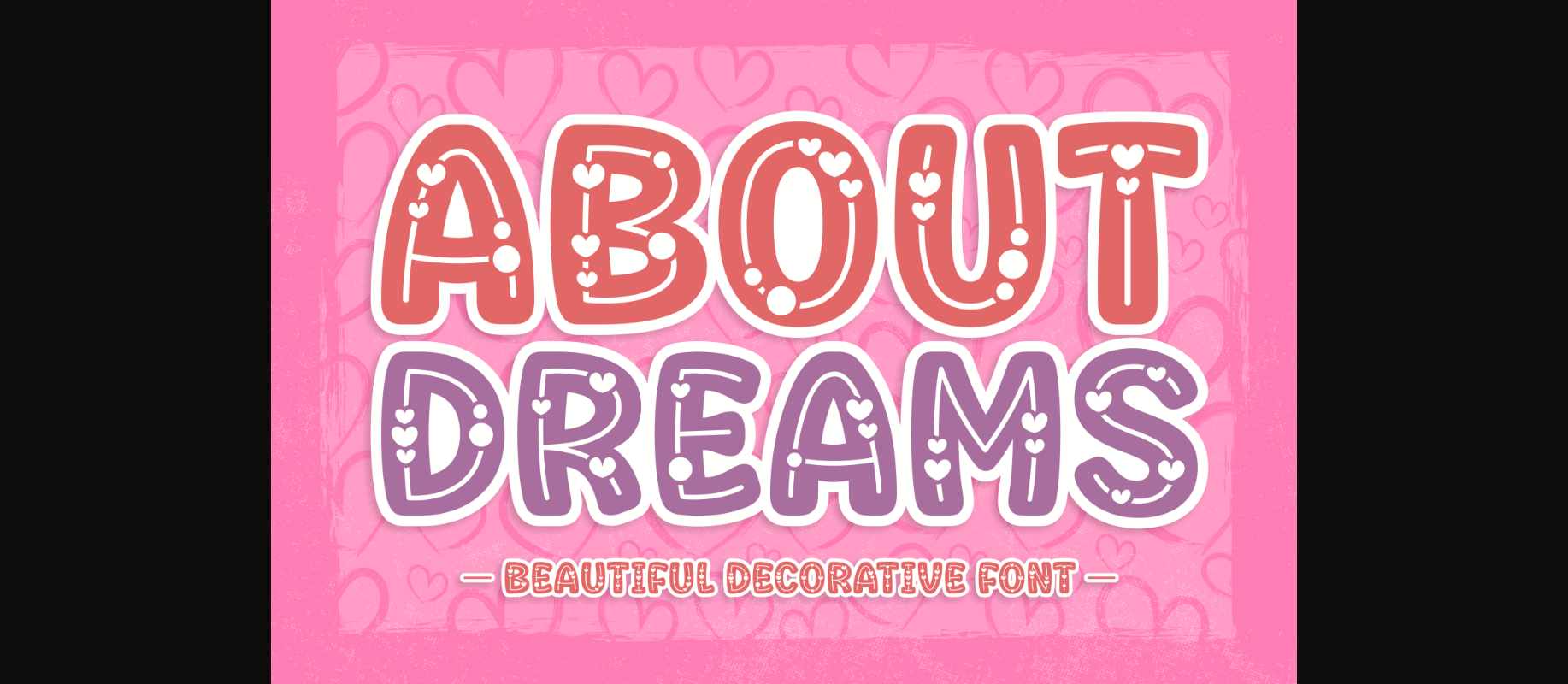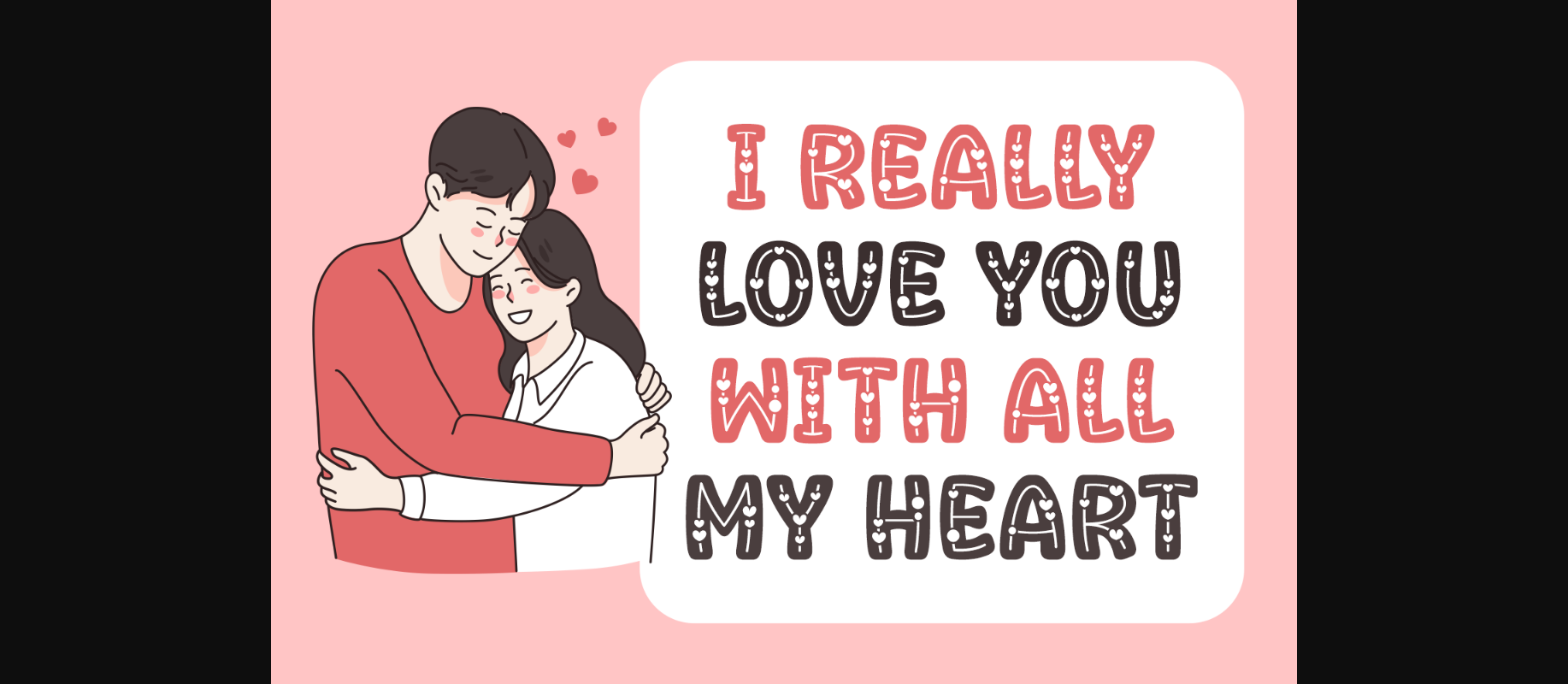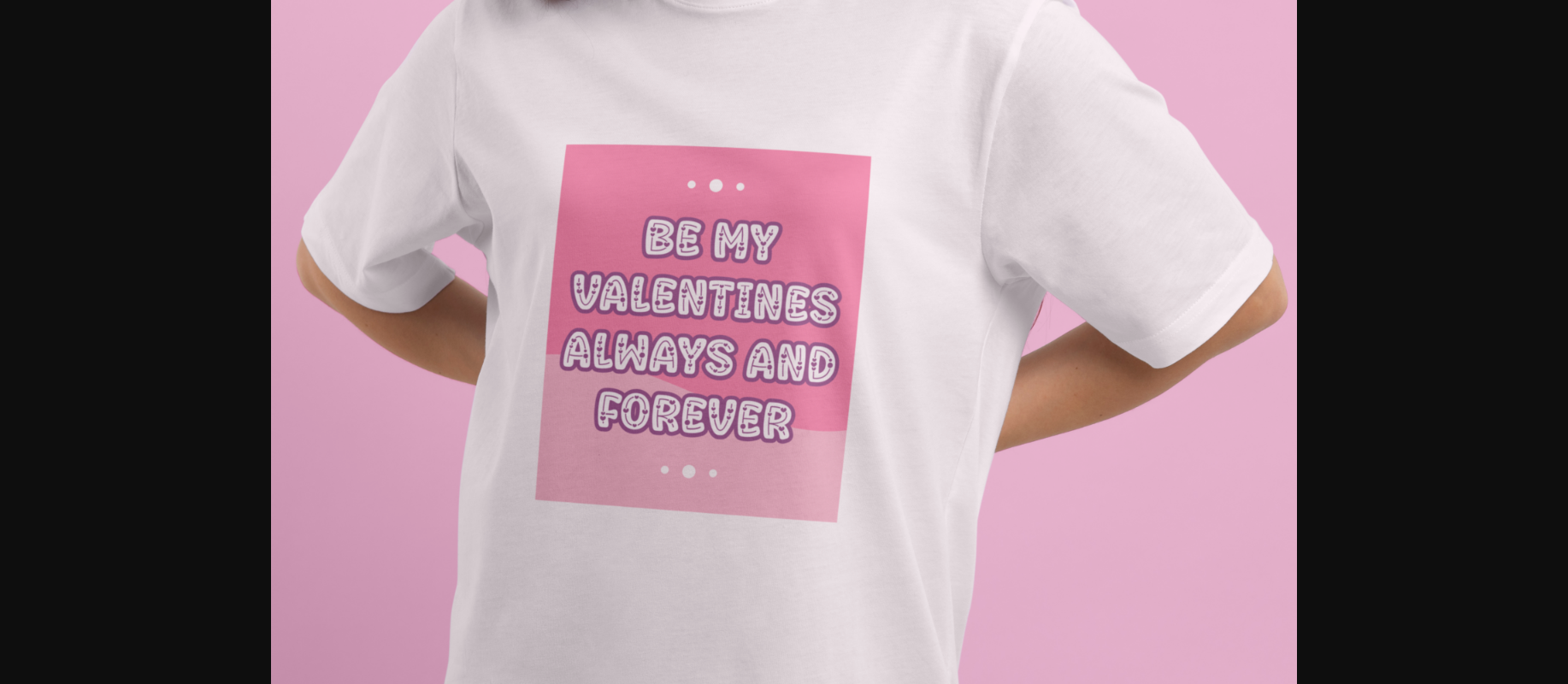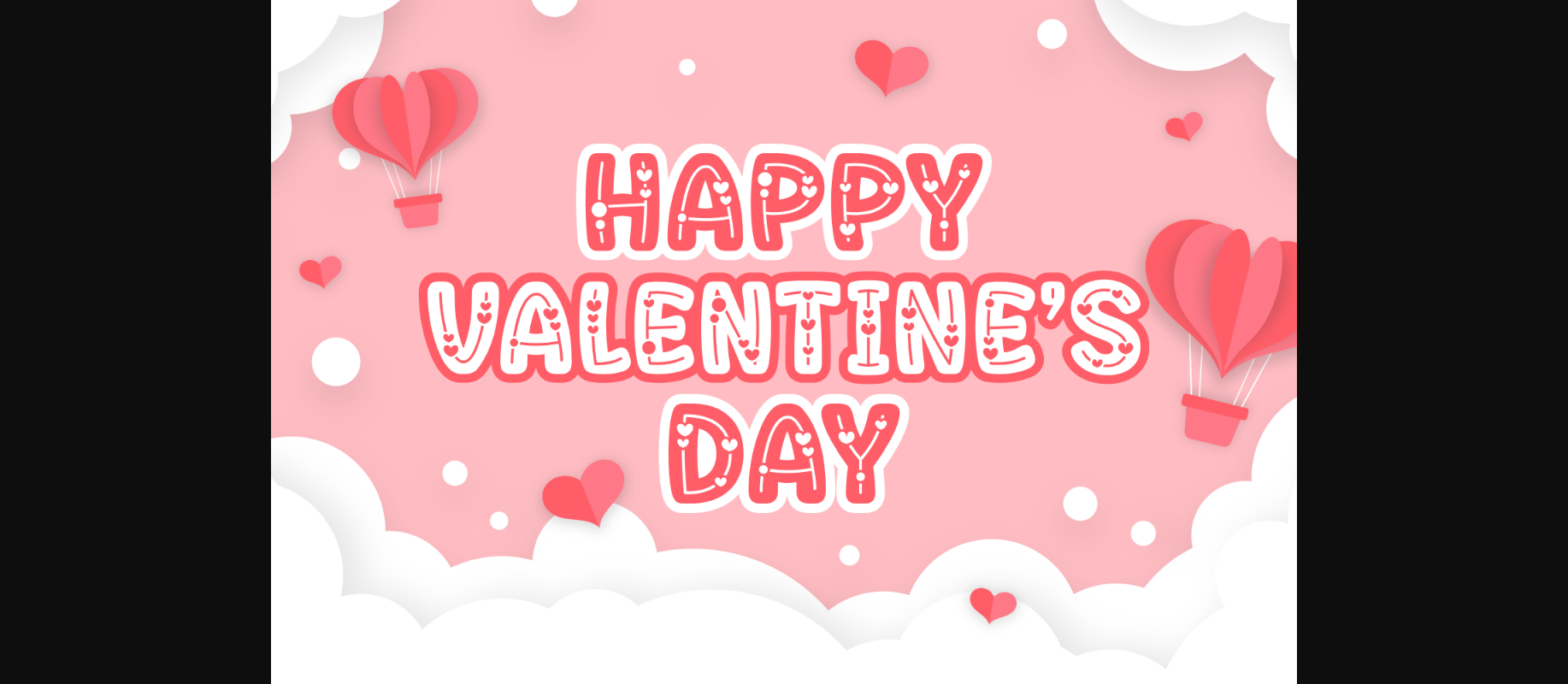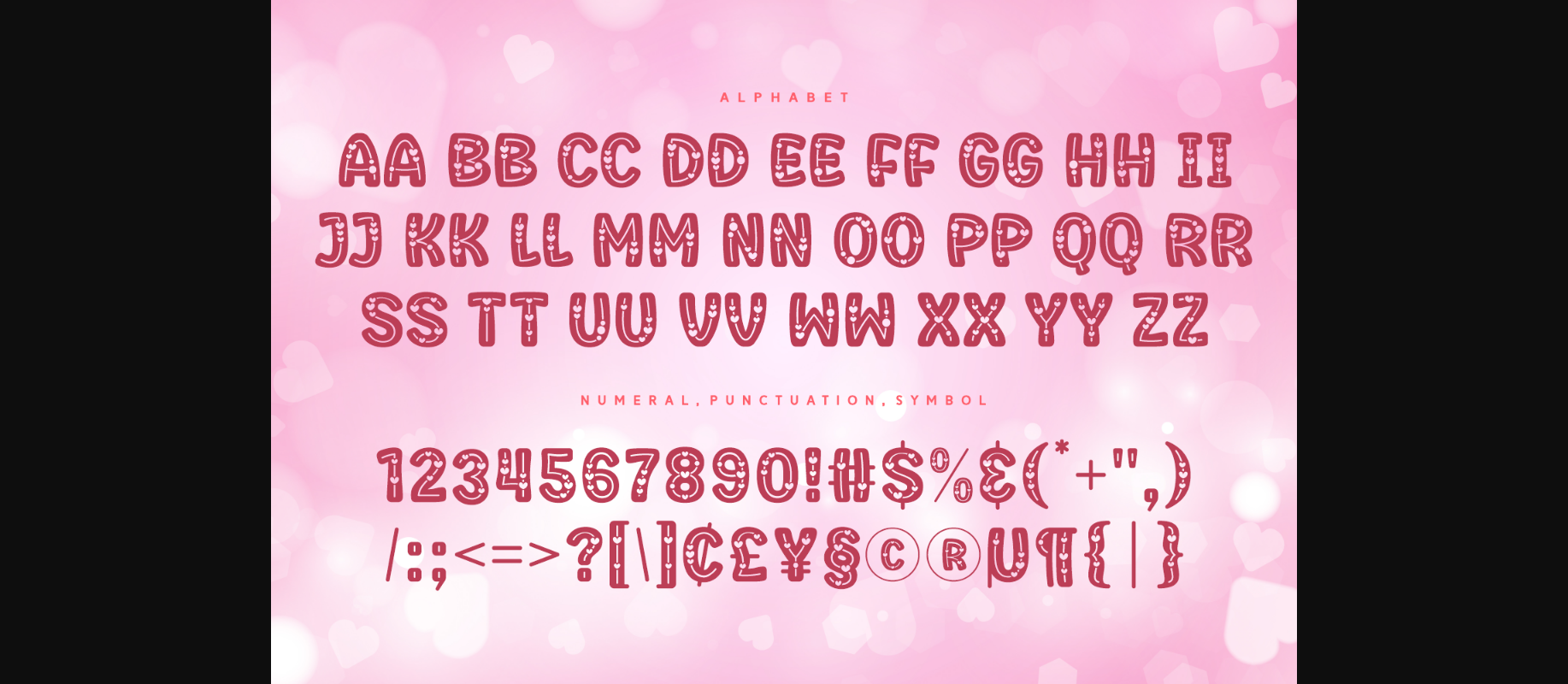
Dreams Font
About Dreams Font
About Dreams is a gorgeous decorative font with cute little heart details. This remarkable typeface is the perfect choice for creating outstanding typography designs. It looks perfect on Valentine’s day cards, t-shirts, and more. Use it whenever you need to create something special!